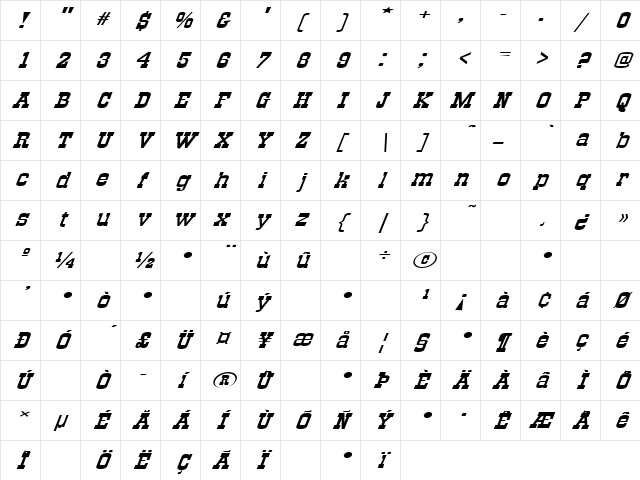
Complete All Night 8 Italic glyph index. Displaying only characters natively supported by All Night 8 Italic font.
All Night 8 is a composed and adaptable typeface that performs quietly and consistently across a wide range of design contexts. The slanted form adds forward momentum and visual energy.
Pro Tip: Use All Night 8 for emphasis, pull quotes, and subheadings where its slanted energy can add rhythm to the layout.